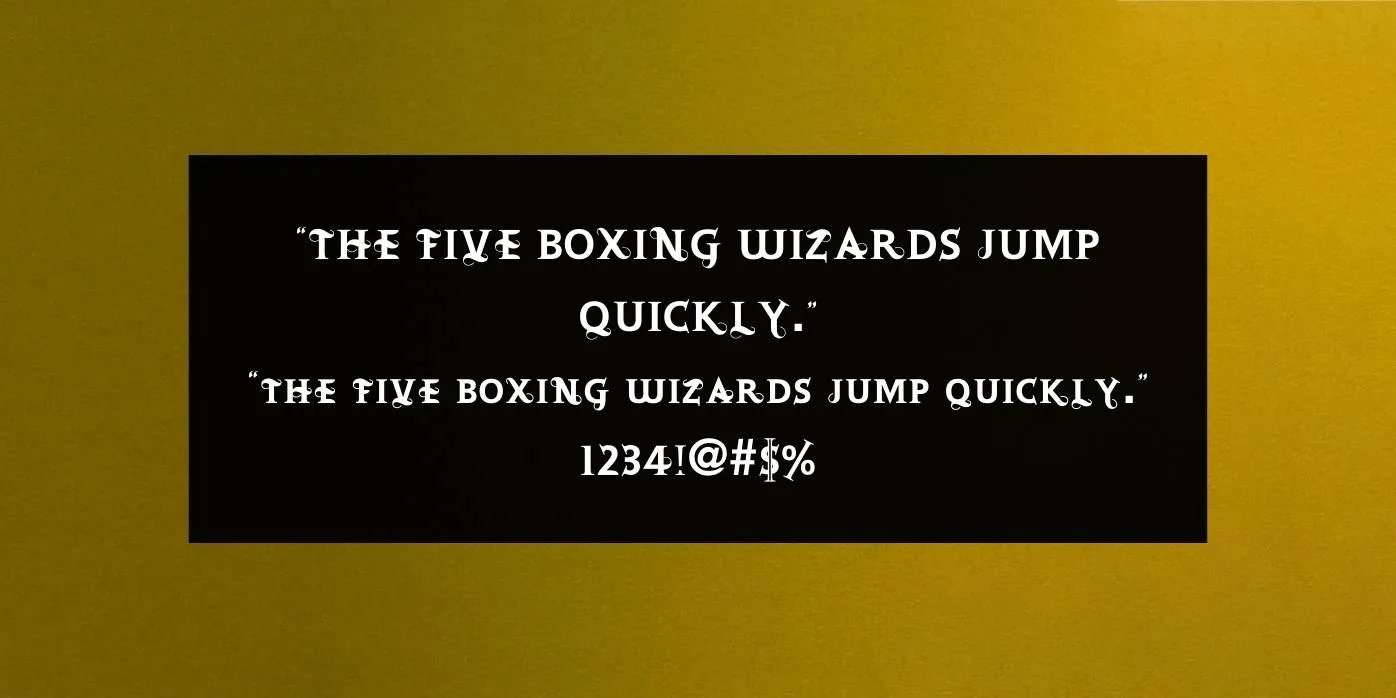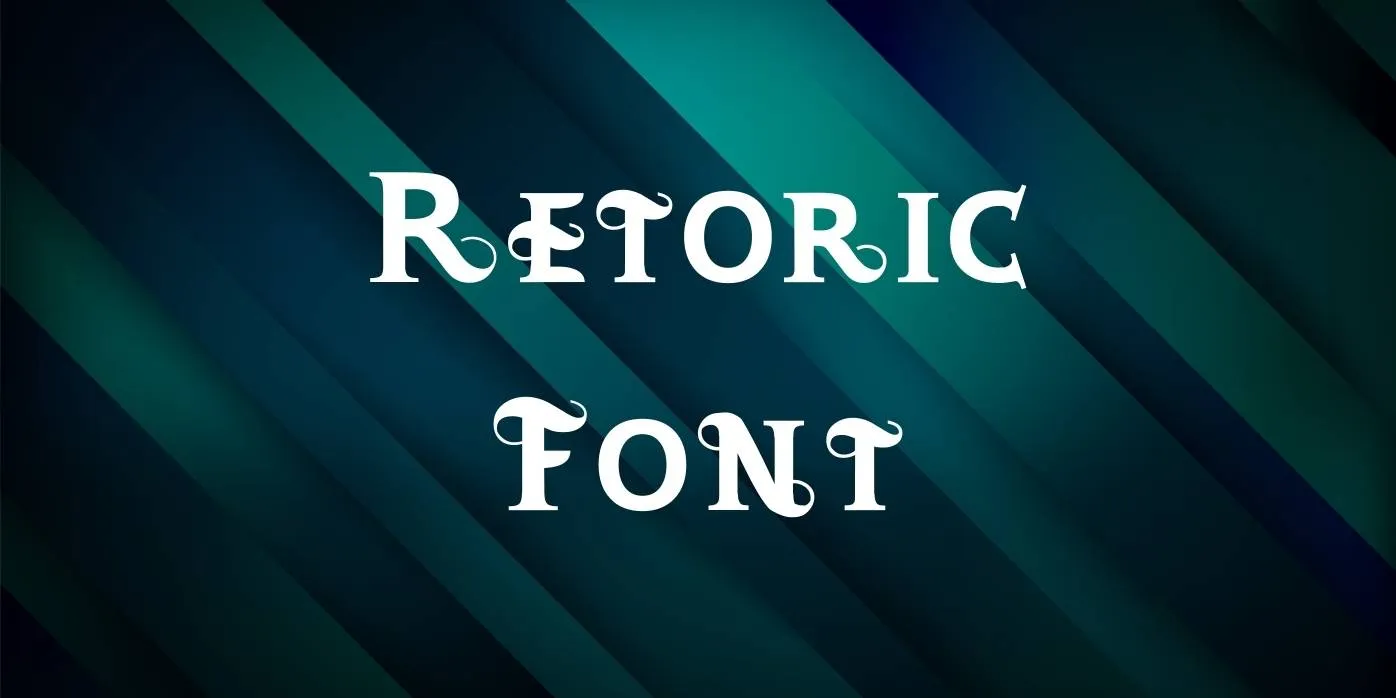
Retoric Font
Retoric Font is a display typeface created by Swedish type foundry Retorik in 2011. The family includes three weights (light, regular, and bold) with italics, small caps, and extended character sets. This Font was inspired by the fancy typefaces of the early 20th century, but with a more contemporary twist. The name Retoric is a combination of the words “retro” and “orchid”, and the typeface is indeed both retro and ornate.
The small caps are a great way to add variety to your text, and the extended character set includes all the accented characters you need for European languages. You can also download this font alternative from this website. Some are free for commercial or some are paid.